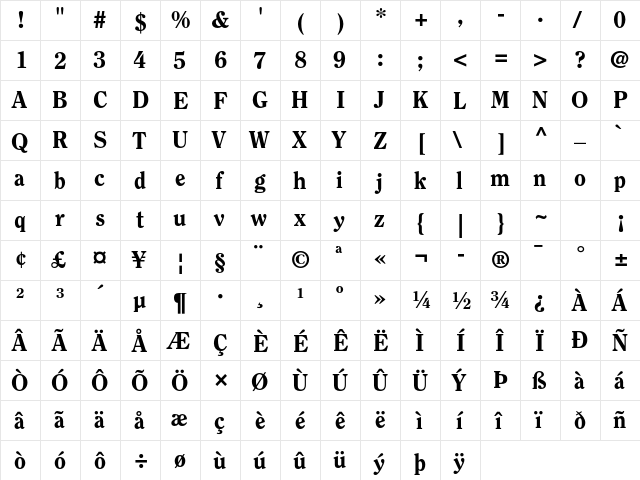
ITC Clearface Std Heavy
| Designer | Vic Caruso |
Design Context for ITC Clearface Std Typeface
ITC Clearface Std is a composed and adaptable typeface that performs quietly and consistently across a wide range of design contexts.
Pro Tip: Use ITC Clearface Std in both headline and body roles to test its range before committing to a single application.